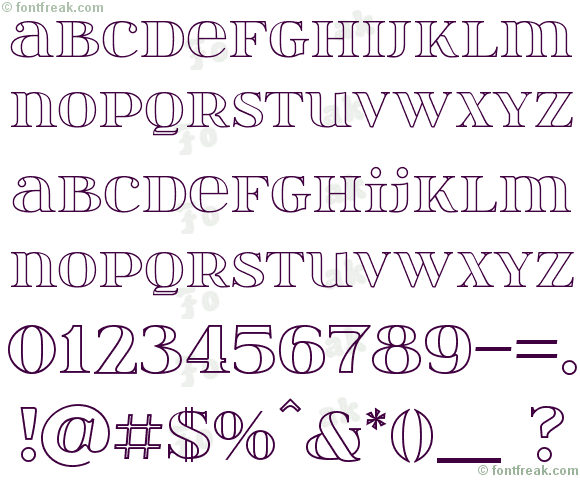
itsadzokeS03
The itsadzokeS03 font, created by Grzegorz L., is a striking display typeface that falls within the decorative category. Characterized by its bold, elongated strokes and unique letterforms, this font captures attention with its distinct personality. The stroke weight is consistent, providing a sense of stability, while the contrast between the thick and thin lines adds a dynamic quality. The spacing is well-balanced, ensuring readability without sacrificing style, making it an ideal choice for various creative projects.
ItsadzokeS03 excels in applications such as wedding invitations, where its decorative nature can elevate the overall design. It is also well-suited for movie posters, giving a dramatic flair that draws viewers in. Restaurant menus can benefit from this font, adding a touch of sophistication that enhances the dining experience. Additionally, itsadzokeS03 can be effectively used in branding for small businesses looking to establish a memorable visual identity. The font's unique character makes it appealing to graphic designers, small business owners, and content creators who seek to make a statement through their typography.